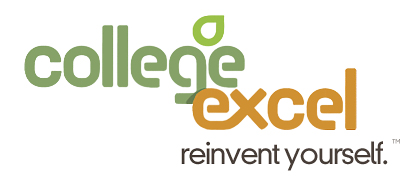
font help needed
anyone know this one?
If it is a font (as opposed to a custom design) I'd like to know what it is, as it would be a good one to use for some logo designs.
Dang! I'd really like to know this one. Is there any ID source other than "What the Font"?
jhill mentioned whatfontis.com a while back had some luck with that.
oh and there's identifont, no luck with that asofyet